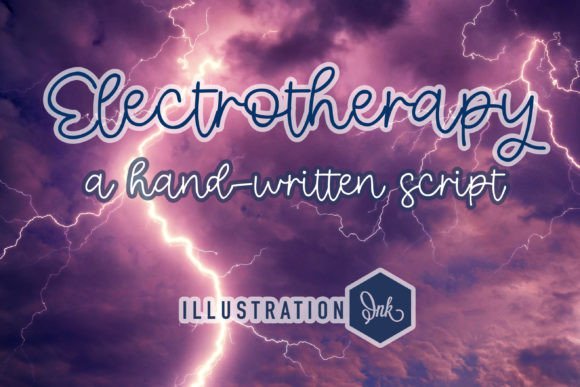
Introducing Electrotherapy Font: The Perfect Handwritten Script for Your Design Needs
Are you looking for a font that can add a touch of personality to your designs? Look no further than Electrotherapy Font, a casual, hand-written script that exudes an easy-going look and feel. This versatile font is perfect for any project that requires a handwritten feel, from wedding invitations to business cards, and everything in between.
A Natural and Stylish Addition to Your Designs
Electrotherapy Font has a natural, stylish look that makes it perfect for a wide range of design applications. Its hand-written script style gives it a unique and personalized feel that is sure to capture the attention of your audience. Whether you’re designing a wedding invitation, a thank you card, or a quote, this font is sure to add a touch of elegance and sophistication.
Versatile and Customizable
One of the best things about Electrotherapy Font is its versatility. It can be used for a wide range of design projects, from formal events like weddings and galas to more casual applications like greeting cards and logos. Its customizable style makes it easy to tailor to your specific design needs, ensuring that your project stands out from the crowd.
Electrotherapy Font is a must-have for designers and crafters who want to add a personal touch to their projects. Its hand-written script style makes it perfect for creating unique and eye-catching designs that are sure to impress. Whether you’re designing a logo, business card, or social media graphic, this font is sure to take your design to the next level.
Use Electrotherapy Font for:
- Wedding invitations and wedding stationery
- Thank you cards and greeting cards
- Quotes and social media graphics
- DIY projects and crafts
Why Choose Electrotherapy Font?
There are many fonts to choose from, but Electrotherapy Font stands out from the rest. Here are just a few reasons why:
- Unique and personalized hand-written script style
- Versatile and customizable
- Perfect for a wide range of design applications
- Easily readable and legible
- Supports a wide range of languages
Tips and Tricks for Working with Electrotherapy Font
Here are a few tips and tricks for getting the most out of Electrotherapy Font:
- Use it with a contrasting background to make it stand out
- Pair it with other fonts to create a unique and eye-catching design
- Use it to add a personal touch to your designs
Electrotherapy Font is a versatile and stylish hand-written script that is perfect for any design project that requires a personalized touch. Its natural and stylish look makes it perfect for a wide range of applications, from wedding invitations to business cards. With its customizable style and easy-to-use format, it’s a must-have for designers and crafters alike.